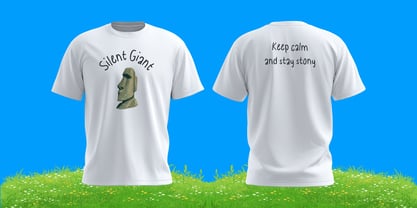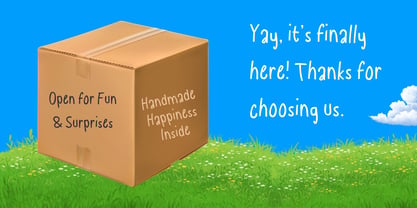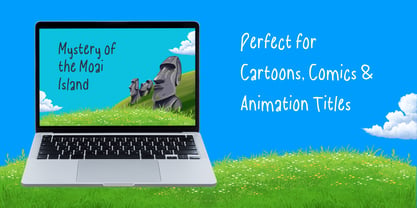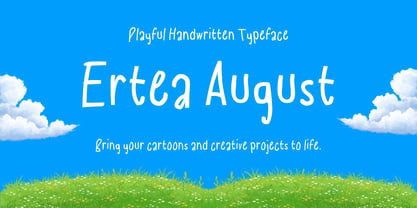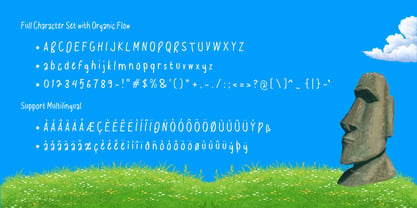
Ertea August
by Kalam
The Ertea August Font Family was designed by Wahyu Eka Prasetya, Moch Zamroni and published by Kalam. Ertea August contains 2 styles and family package options. More about this family
Ertea August: Playful & Friendly Handwritten Font
Bring your creative projects to life with Ertea August, a charming and bouncy handwritten typeface designed specifically to add warmth, personality, and a fun touch to your designs. With its natural flow and organic irregularities, this font captures the authentic feel of real handwriting, making it an ideal choice for cartoon branding, children's books, comic books, and playful packaging.
Key Features & Design Style
• Hand-Drawn Charm: Carefully crafted to mimic casual, everyday pen strokes, giving your text an approachable and friendly vibe.
• Cartoon & Comic Ready: The whimsical, carefree letterforms make it a natural fit for animation titles, cartoon subtitles, greeting cards, and youth-oriented media.
• Versatile Readability: Despite its artistic, handwritten style, Ertea August maintains clean legibility across various screen sizes and print formats.
Best Design Uses
• Entertainment & Media: Cartoon titles, comic book speech bubbles, YouTube thumbnails, and animation posters.
• Branding & Packaging: Snack packaging, toy branding, playful product labels, and merchandise design.
• Stationery & Social Media: Eye-catching Instagram quotes, party invitations, stickers, and school project designs.
Why Choose Ertea August?
Stand out from standard corporate fonts! Ertea August injects genuine emotion and character into your words. Whether you are designing a whimsical children's book cover or a fun branding campaign, this typeface guarantees a joyful, engaging look that immediately captures your audience's attention.